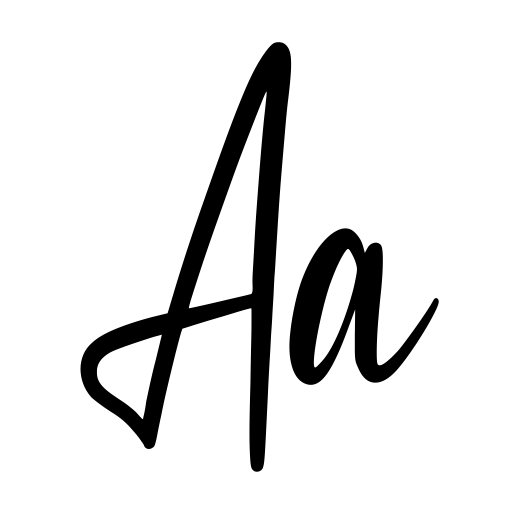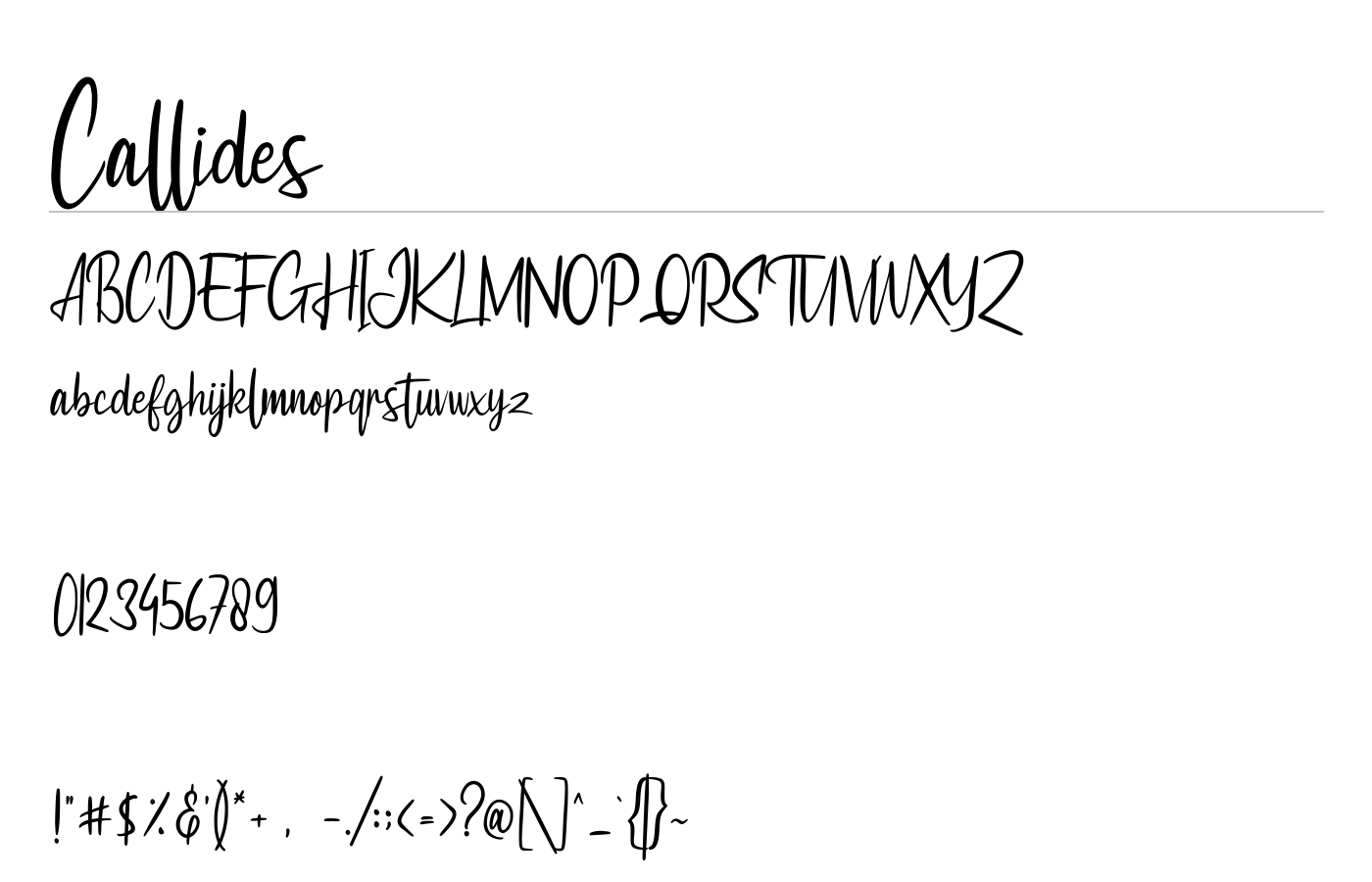
Callides is a playful, handwritten script font with tall, narrow letterforms and a casual, organic feel. Its thin strokes and lively, slightly irregular shapes give it an approachable and creative personality, making it ideal for branding, invitations, and informal editorial use where a personal touch is desired. This font works well in designs that aim to communicate warmth and friendliness without sacrificing style.
Callides Font
About Callides Font